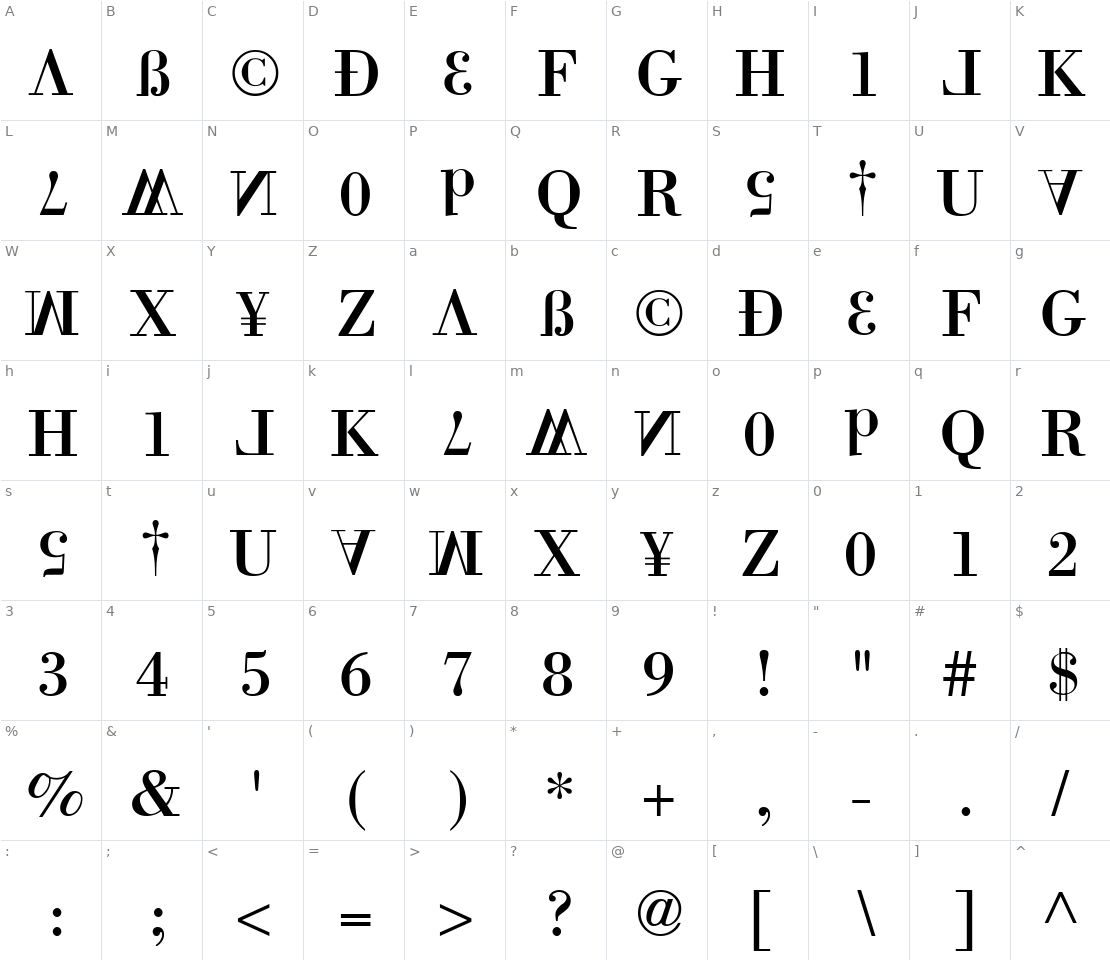
Born
Born is a high-contrast display face from i2design with the sharp stroke variation and vertical stress typical of Didone typefaces. The letterforms feel dramatic and refined, with hairline thins and bold verticals that give it a strong editorial presence. It reads as fashion-forward and confident, built for headlines, mastheads, and luxury branding where elegance needs to carry some real visual tension.